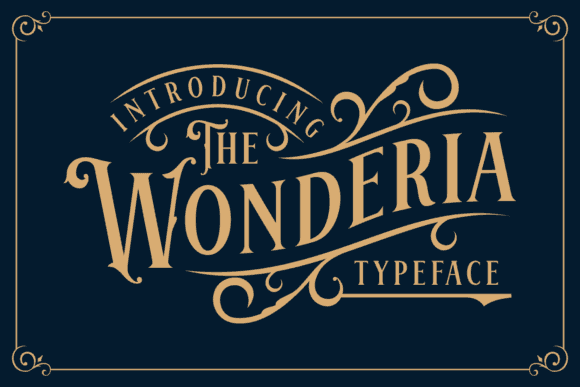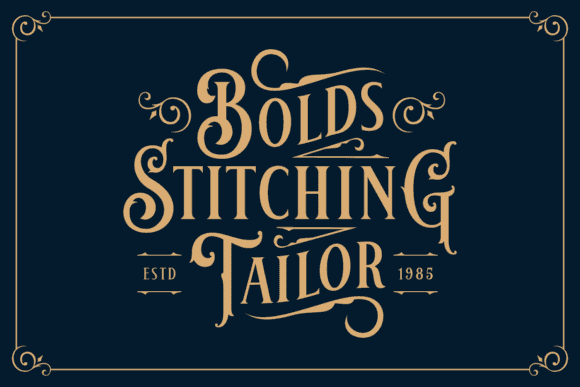
The Wonderia is a whimsical display font. It has an striking look and a great readability. It includes beautiful swashes and design elements which can be used to give your design that little bit of extra!